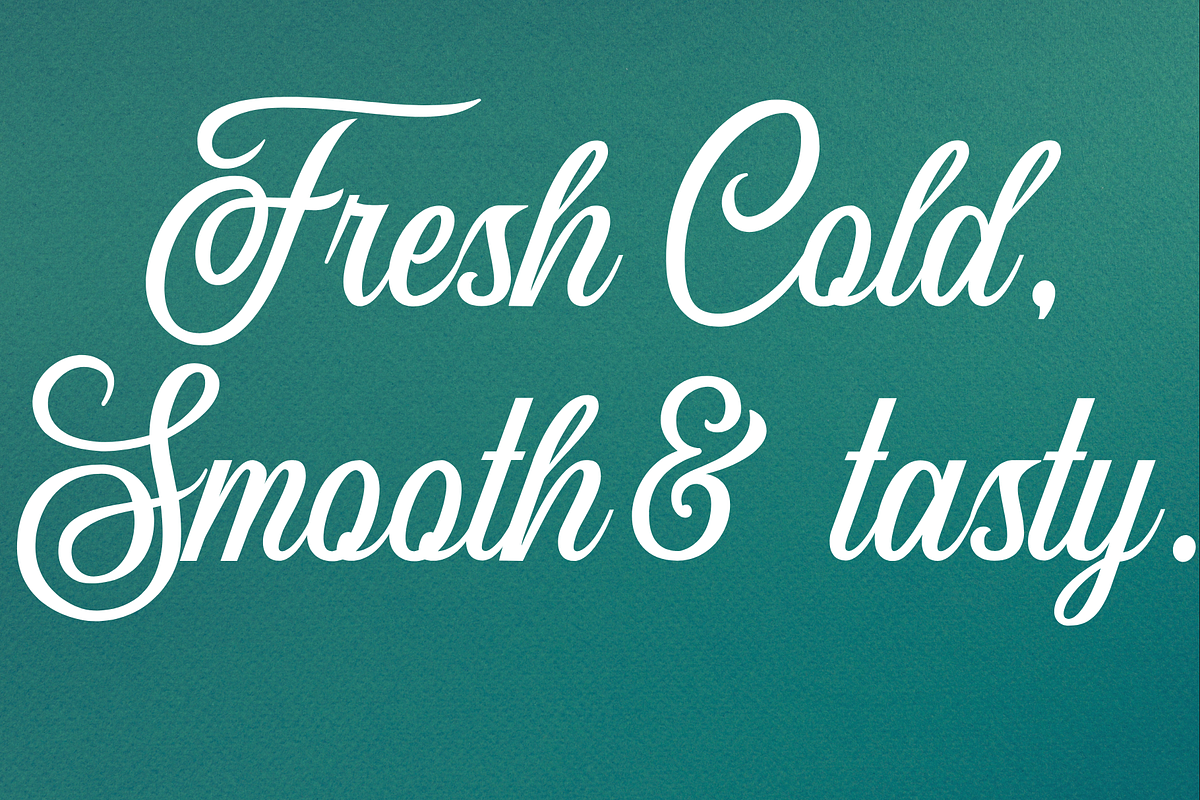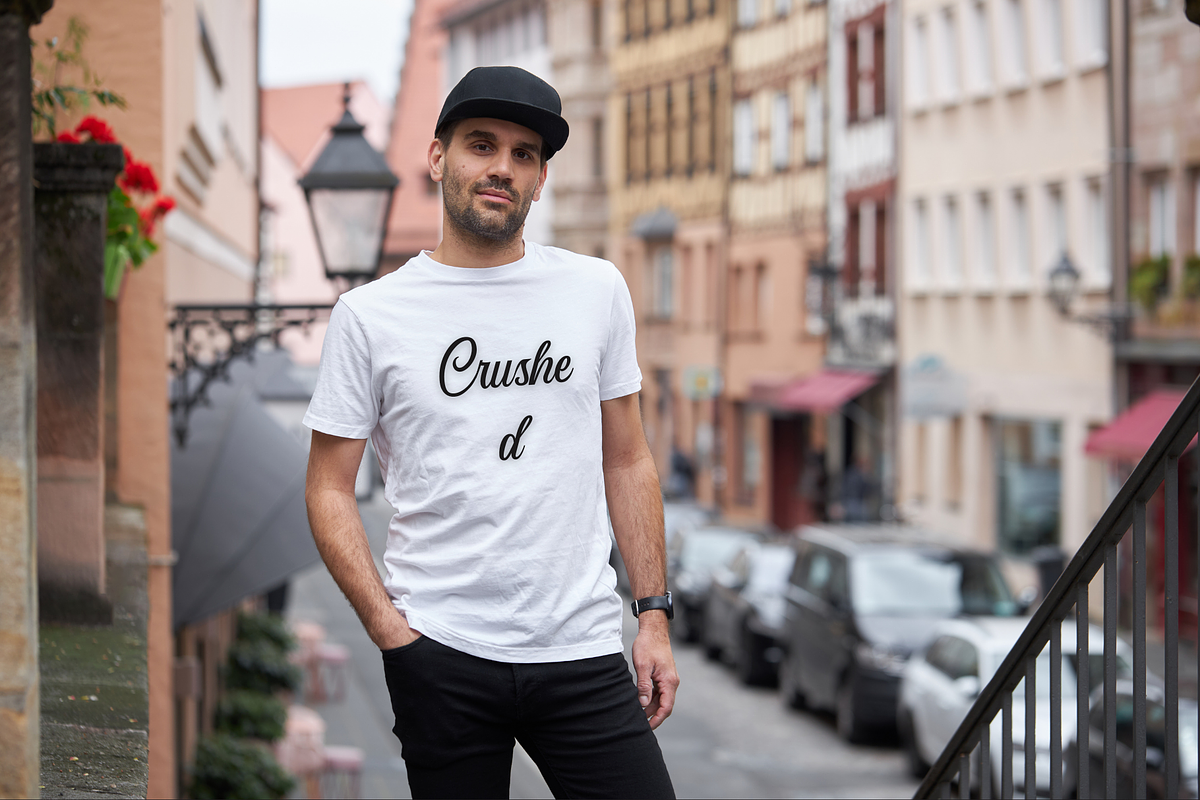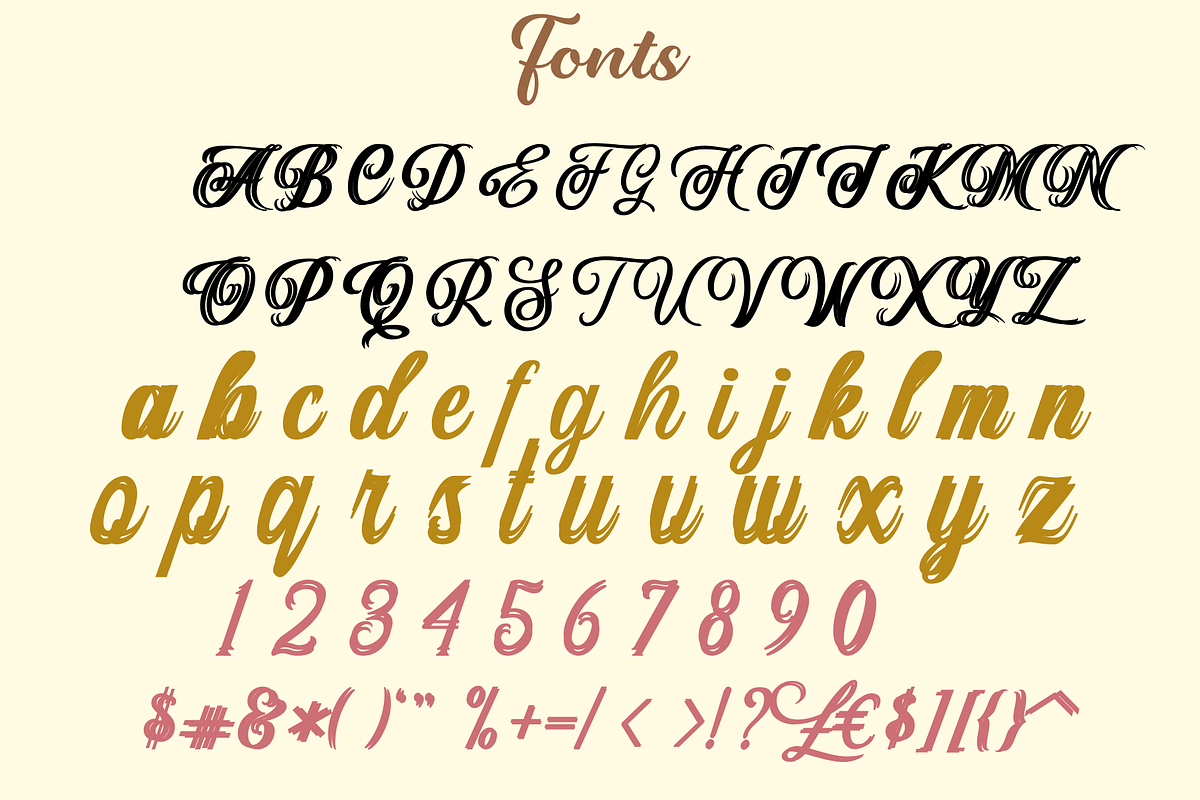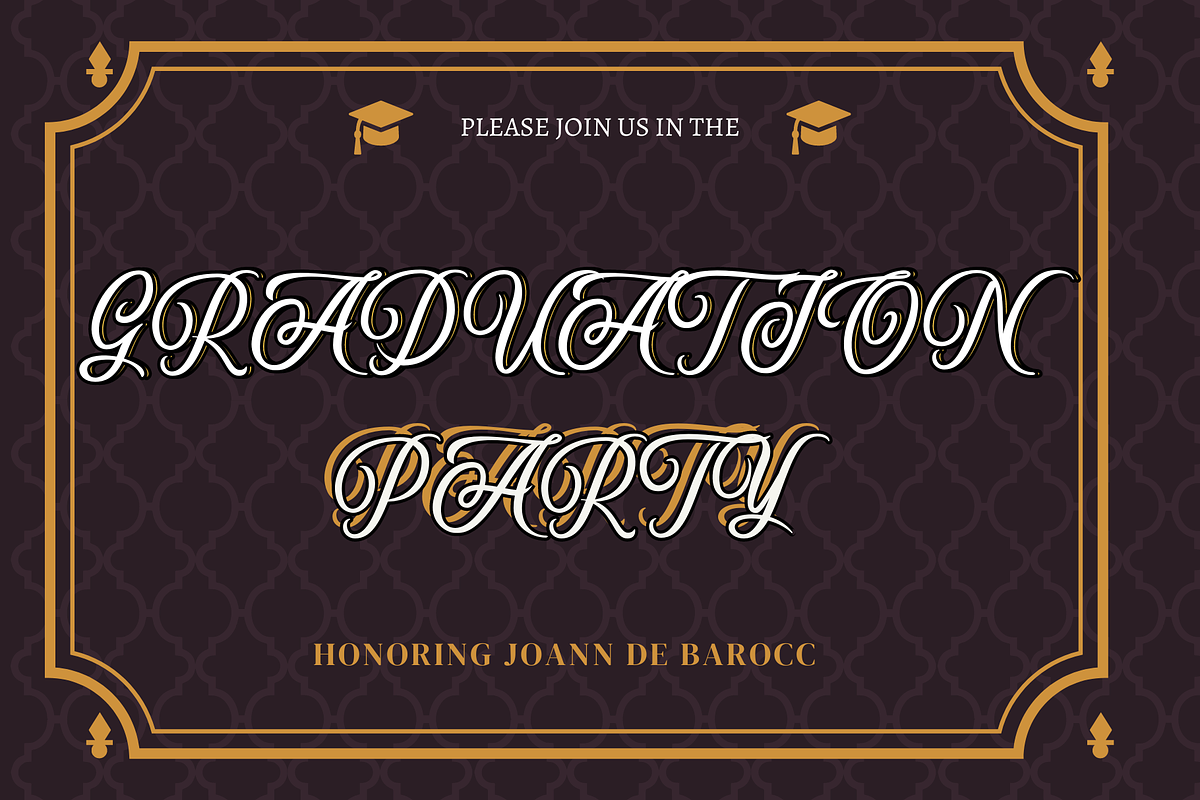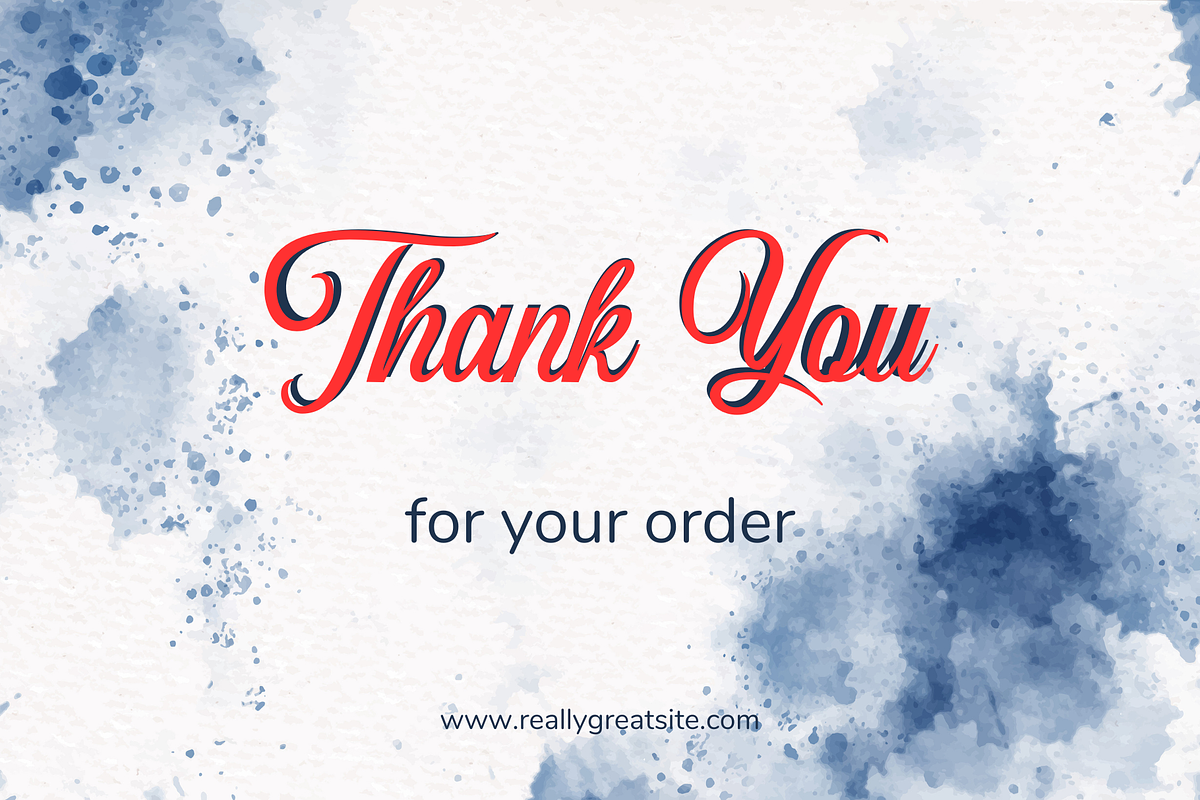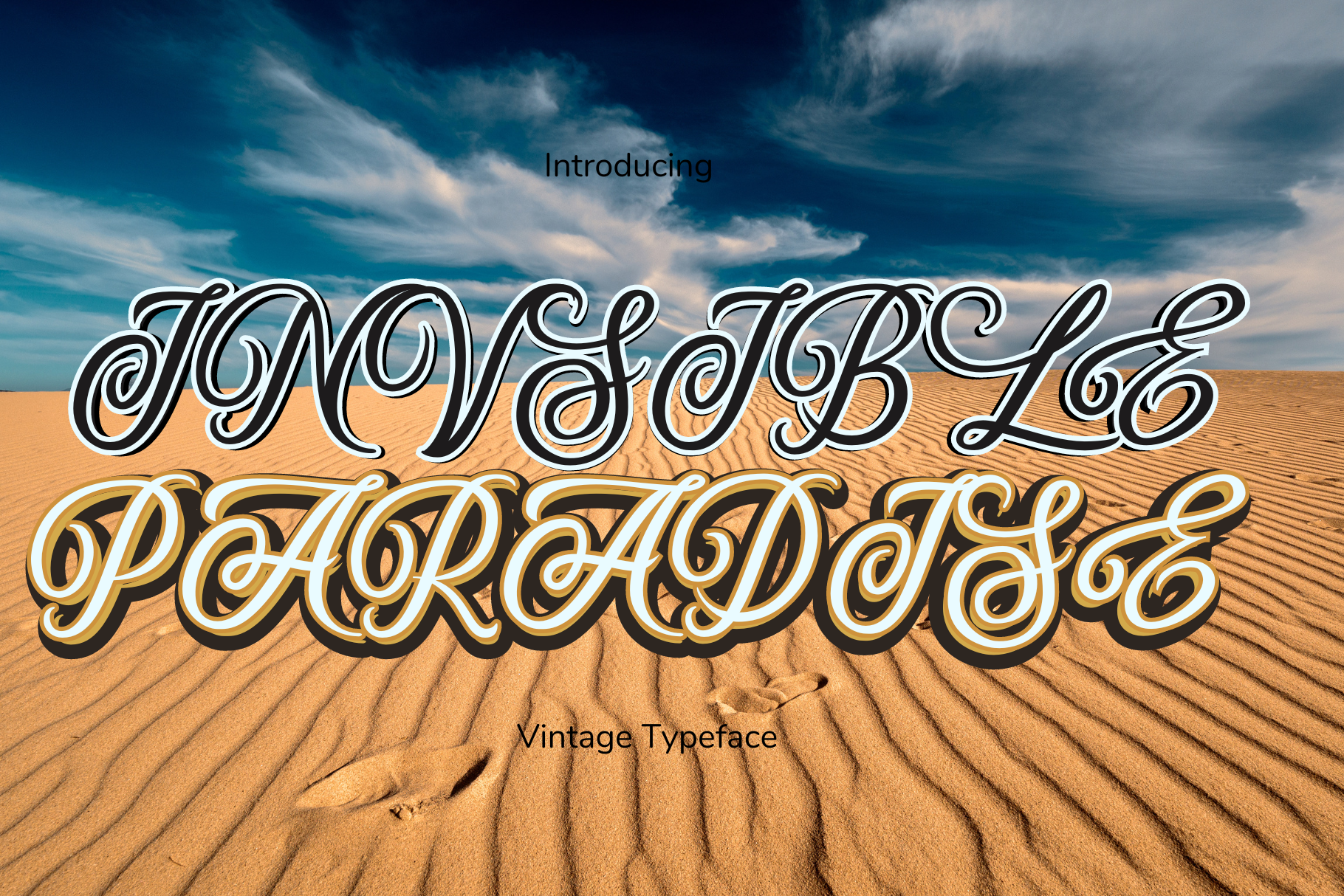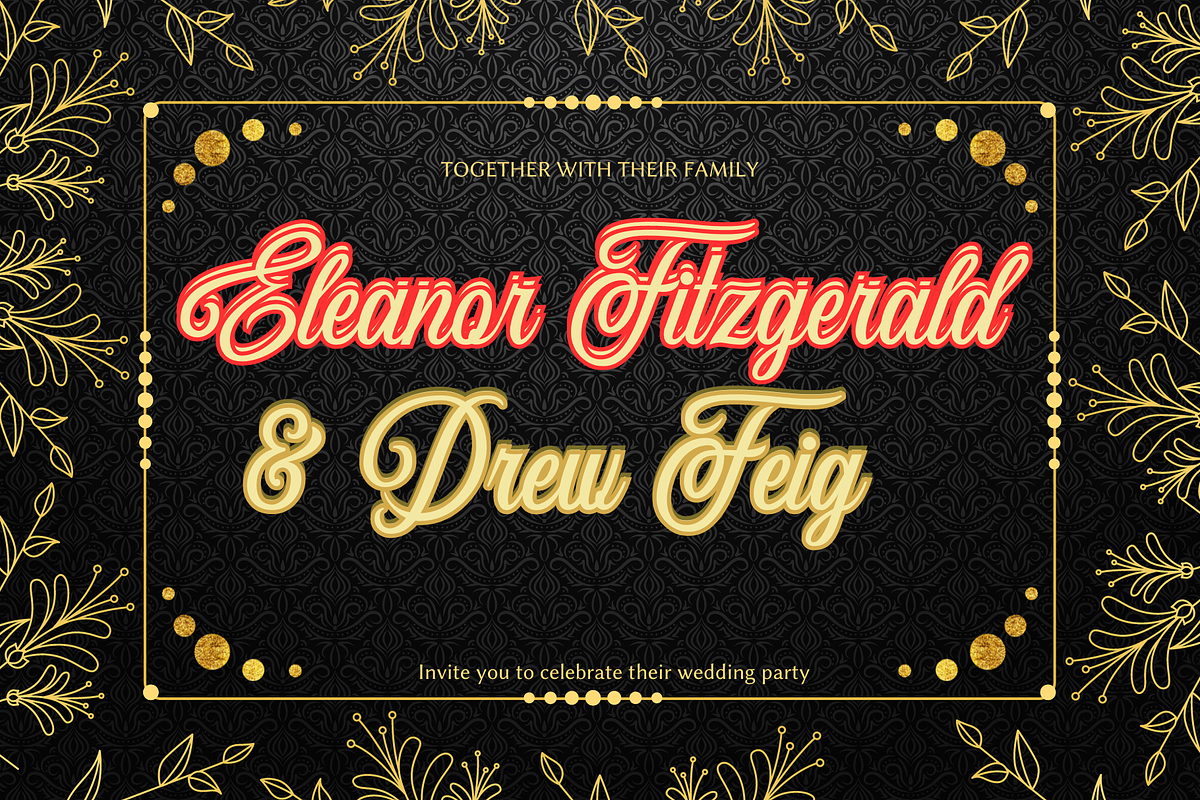
Invisible Paradise Vintage Typeface
Invisible Paradise is a vintage and seductive calligraphy font. Inspired by vintage labels, signage, and packages, Paradise is ideal for similar design ideas but can enhance different designs due to its versatility and charm.